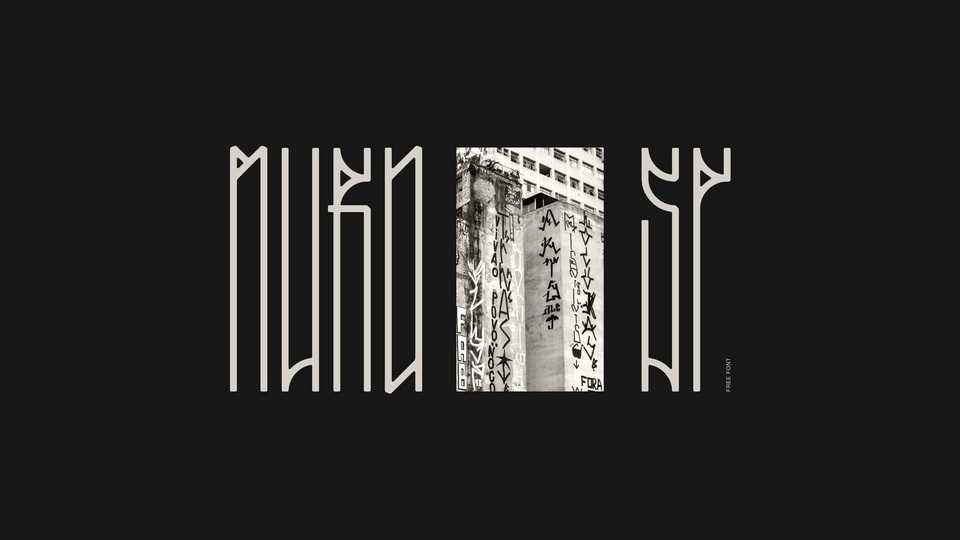
Download MURO SP font, a display typeface inspired by ‘pixo’, a form of urban expression that covers buildings and walls in São Paulo with its unique and original spray painted typography style.
Designer: Allan Diego